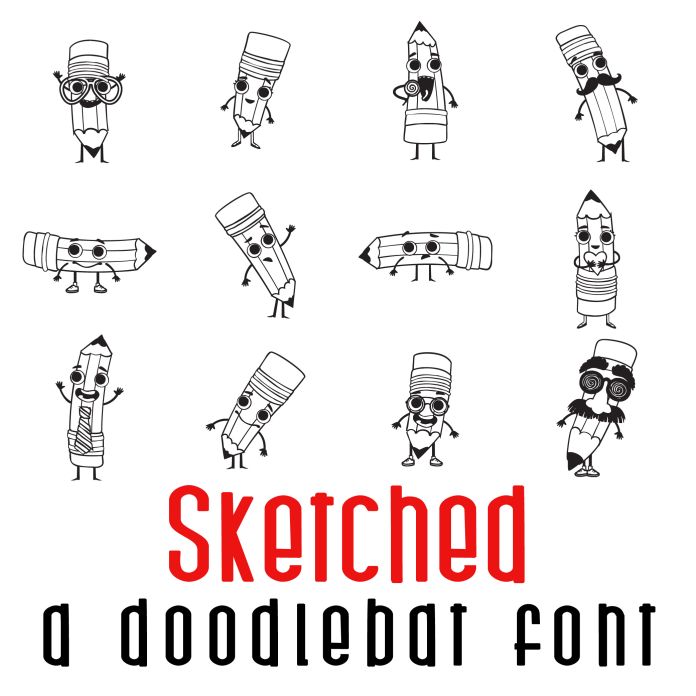
This fun doodlebat font features 26 pencil characters perfect for School, teachers, classrooms, education cards, crafts, gifts, decor, classrooms, planner stickers, scrap book pages and more!